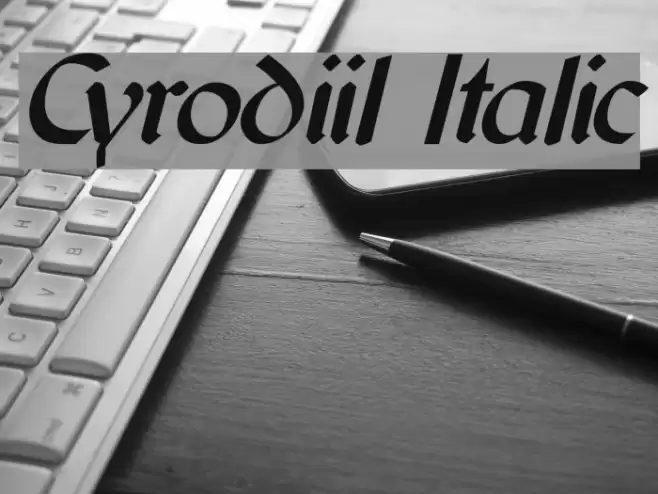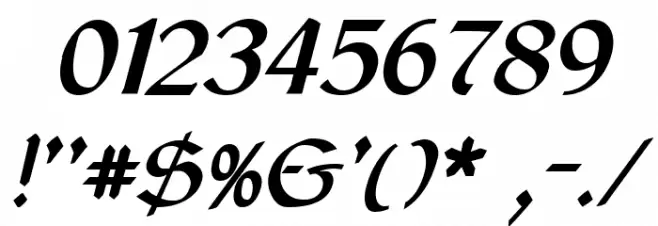
Cyrodiil Italic Font
Cyrodiil Italic Description
This font features a dynamic and elegant italic style, characterized by its flowing and slightly angular letterforms. The strokes are bold and confident, with a moderate contrast between thick and thin lines, giving it a sense of movement and sophistication. The uppercase letters are distinct and commanding, while the lowercase letters maintain a graceful continuity. Numerals are clear and consistent, complementing the overall aesthetic. Special characters are well-integrated, maintaining the font's cohesive style. This font is suitable for projects that require a touch of elegance and flair.
A dynamic and elegant italic font with bold, flowing letterforms from Gothic fonts.
- Proposed Projects: Ideal for branding, invitations, editorial design, and elegant signage.
- Overall Style: Elegant
- Use Case: Logos, Invitations, Editorial Design